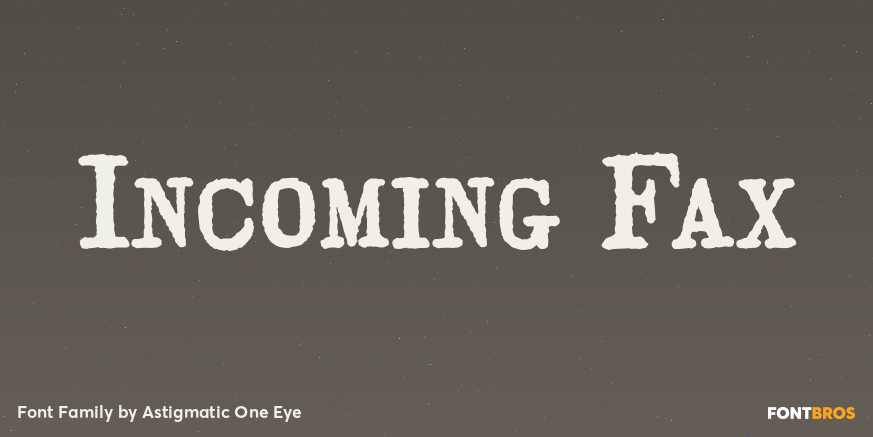
HomeFont BrosDistressedIncoming Fax DistressedSerif Incoming Fax FacebookXPinterestWhatsApp 1 of 1 About Incoming Fax A typeface made from vintage typewriter samples and meticulously compiled into a complete character set.  DOWNLOAD NOW People also explored Oaklinn Script Font Asetin Font Athennae Font Stockville JNL Font Gelatik Font Fahrenheit Font Bakmi Enak Font Tools Doodle Font Dallard Font 219 0 TagsIncoming Fax Font Previous articleIshtarNext articleHoliday Doodles LEAVE A REPLY Cancel reply Comment: Please enter your comment! Name:* Please enter your name here Email:* You have entered an incorrect email address! Please enter your email address here Website: Save my name, email, and website in this browser for the next time I comment. Personal Use Free Rocketto Personal Use Free Read more about this font Rakesly Personal Use Free Read more about this font Cadosa Personal Use Free Read more about this font Messy Personal Use Free Read more about this font BLOG The 10 Best Handwriting Fonts to Add Personality to Your Designs 10 of the Best Handwriting Fonts for Adding Personality to Your Designs There will undoubtedly be no other better choice than handwriting fonts to give... Exploring Font Trends Where to Buy American Fonts Online in 2024 To increase your work productivity, choose the most readable fonts.